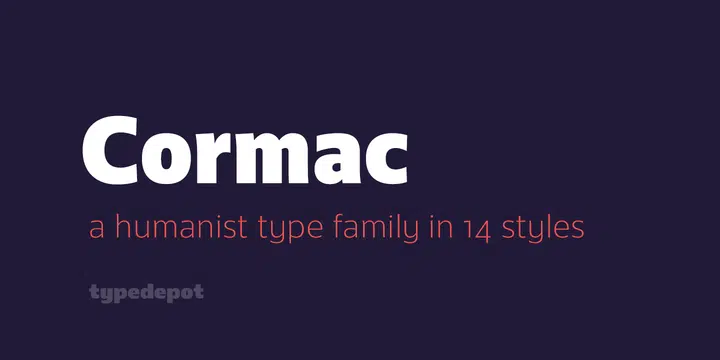
Cormac Font is perfect for literary branding, book covers, editorial designs, sophisticated logos, publishing house identities, cultural event posters, art gallery materials, classic restaurant branding, heritage product packaging, academic publications, literary magazine layouts, and any design project requiring a refined and intellectual aesthetic.
What makes Cormac Font exciting is its literary elegance that evokes a sense of timeless sophistication and intellectual depth. The font's carefully crafted letterforms balance classical typography traditions with contemporary readability, making it ideal for brands seeking to communicate wisdom, heritage, and cultural refinement. Its distinguished character creates an atmosphere of thoughtfulness and quality, resonating with audiences who appreciate craftsmanship and artistic integrity in design.
The Cormac Font family typically includes uppercase and lowercase characters, numerals, punctuation marks, ligatures, and stylistic alternates that enhance its literary sophistication.
Looking for the Cormac Font Free Download? This distinguished typeface brings literary grace and intellectual beauty to every design project, offering designers a refined tool for creating culturally rich content. Whether you're developing publishing brands, crafting editorial masterpieces, or creating designs that celebrate written word and artistic expression, this font delivers the timeless elegance and scholarly character needed to communicate depth and sophistication across all applications.